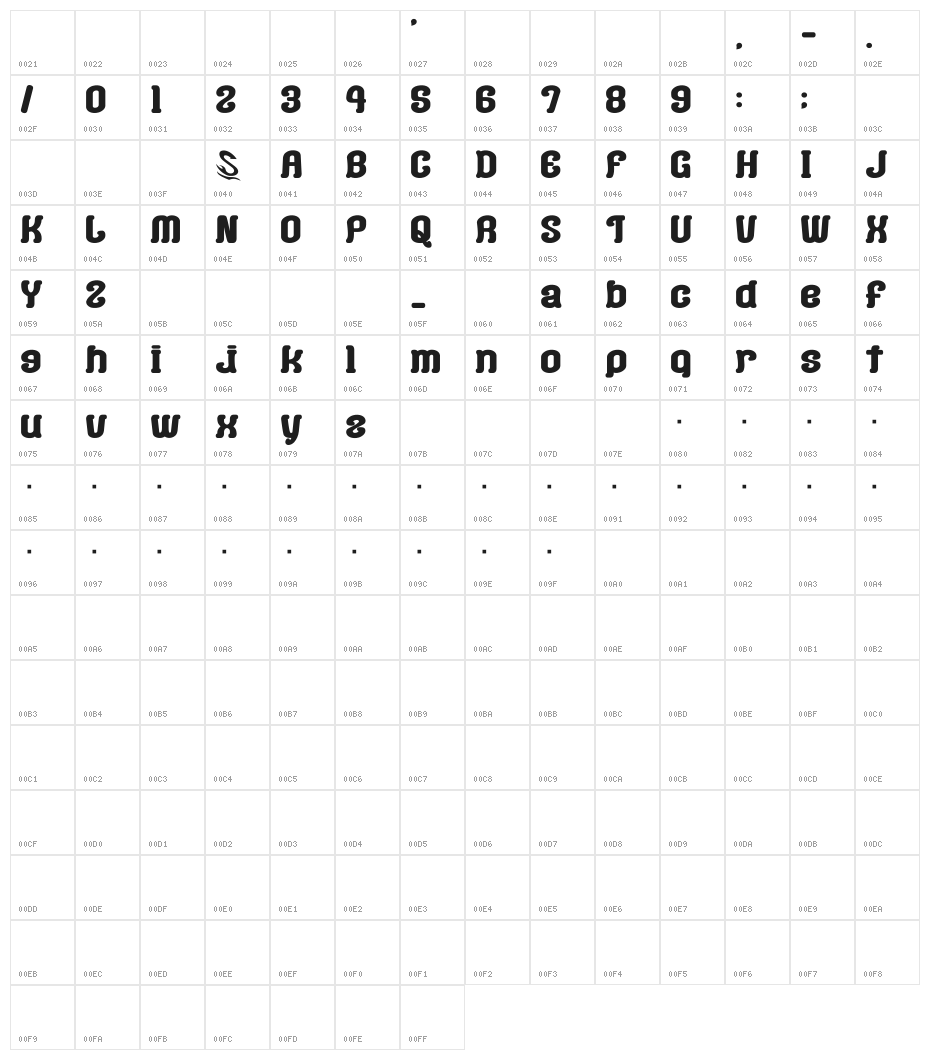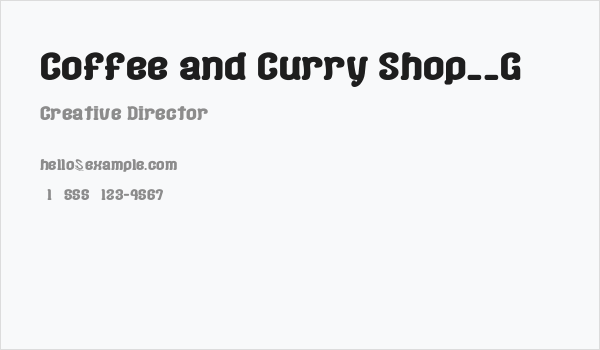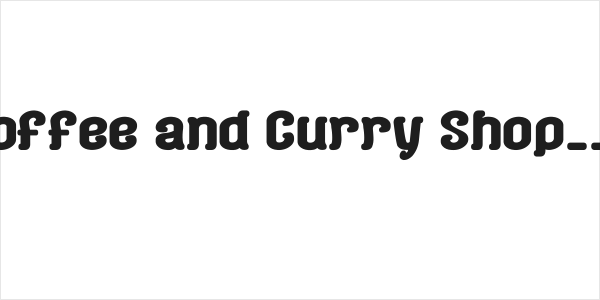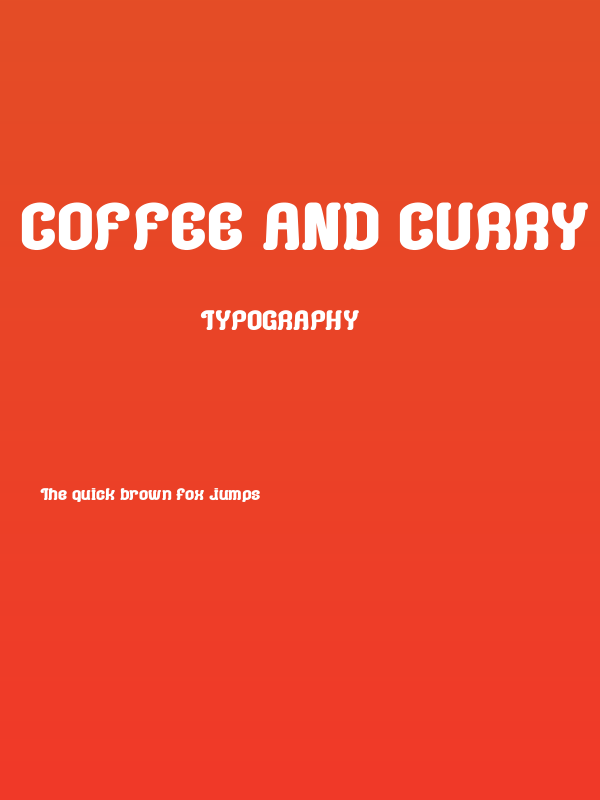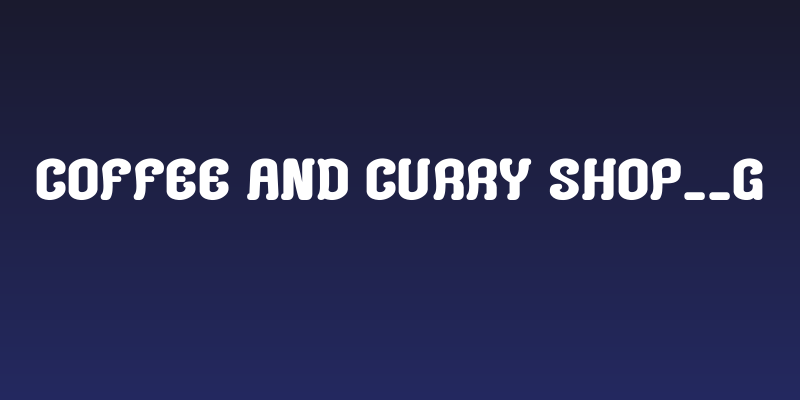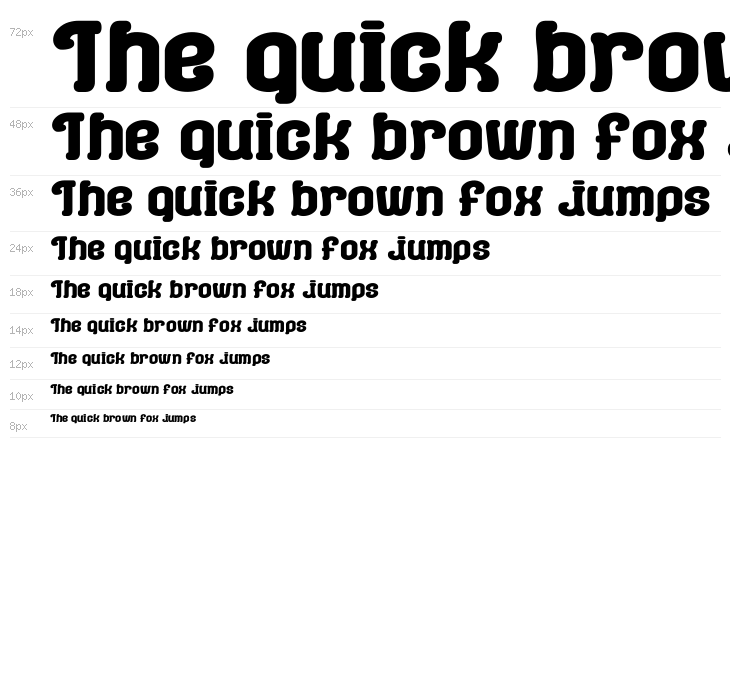
Coffee and Curry Shop__G Font
Coffee and Curry Shop__G Description
This font features a bold, rounded style with a playful and friendly appearance. The characters are thick and well-defined, with a consistent stroke width that gives it a strong presence. The rounded edges and soft curves contribute to its approachable and informal look, making it suitable for casual and fun designs. The font maintains a uniform weight throughout, ensuring readability and clarity. Its unique character shapes, such as the distinctive tails on letters like 'g' and 'y', add a touch of whimsy. The numerals and special characters are designed to match the playful style, ensuring a cohesive look across all text elements.
| Proposed Projects | Ideal for children's books, playful branding, cafe menus, and casual event posters. |